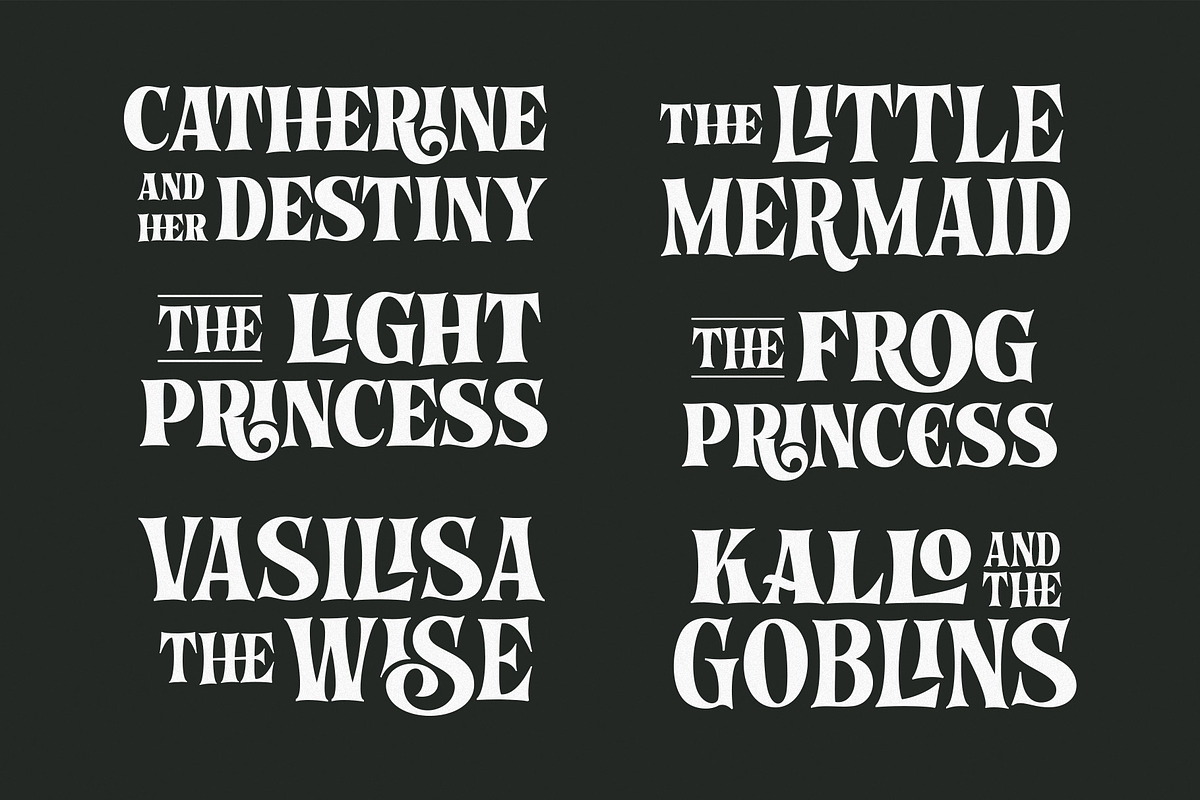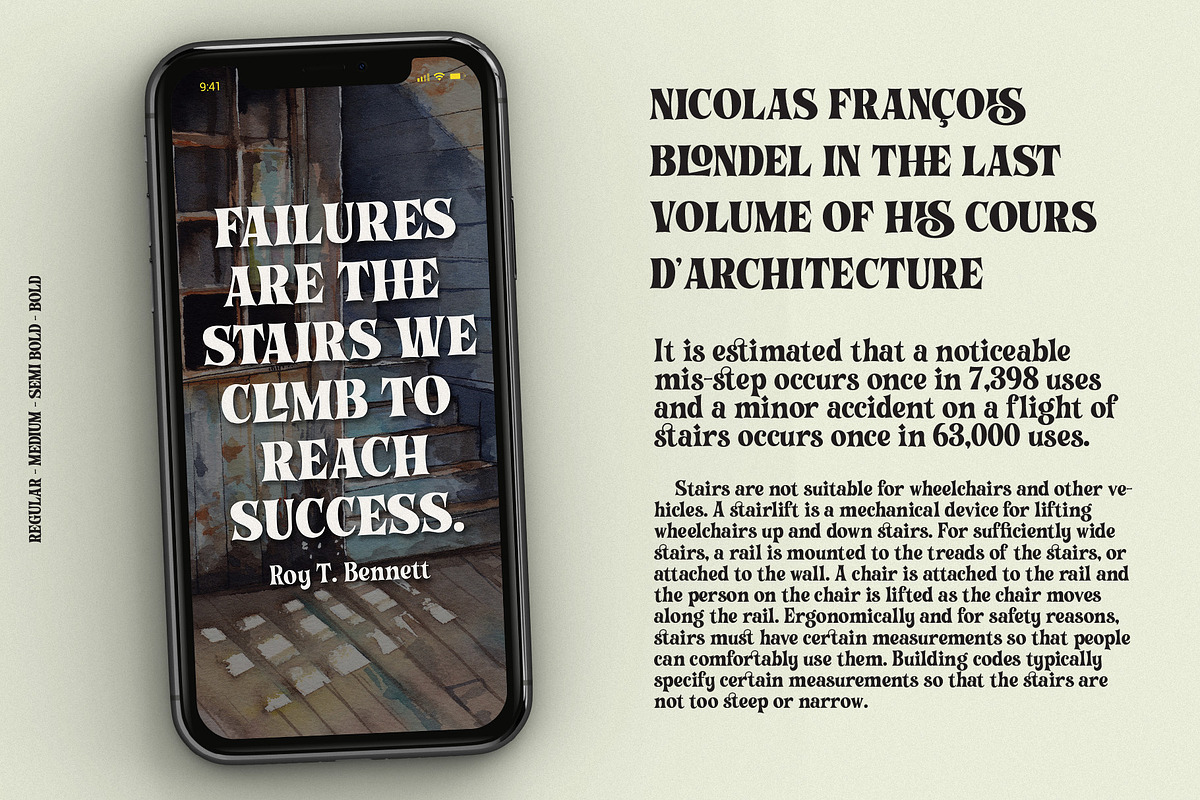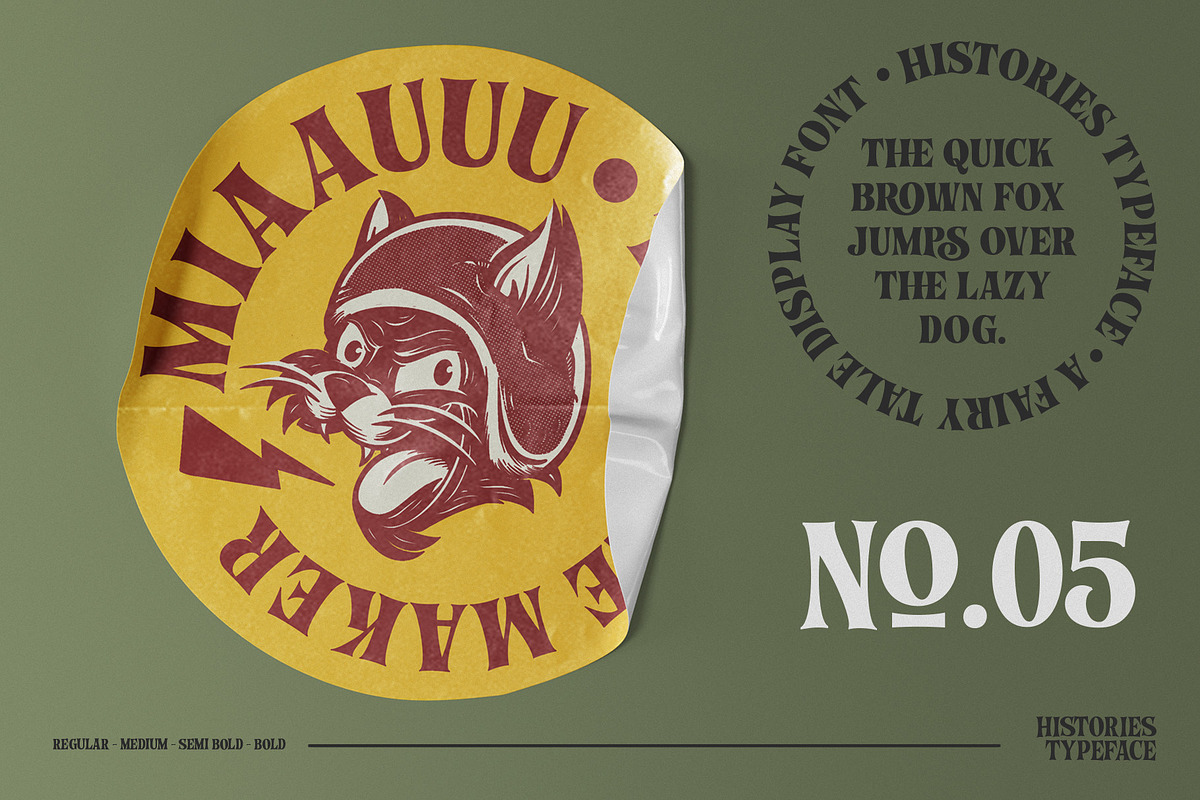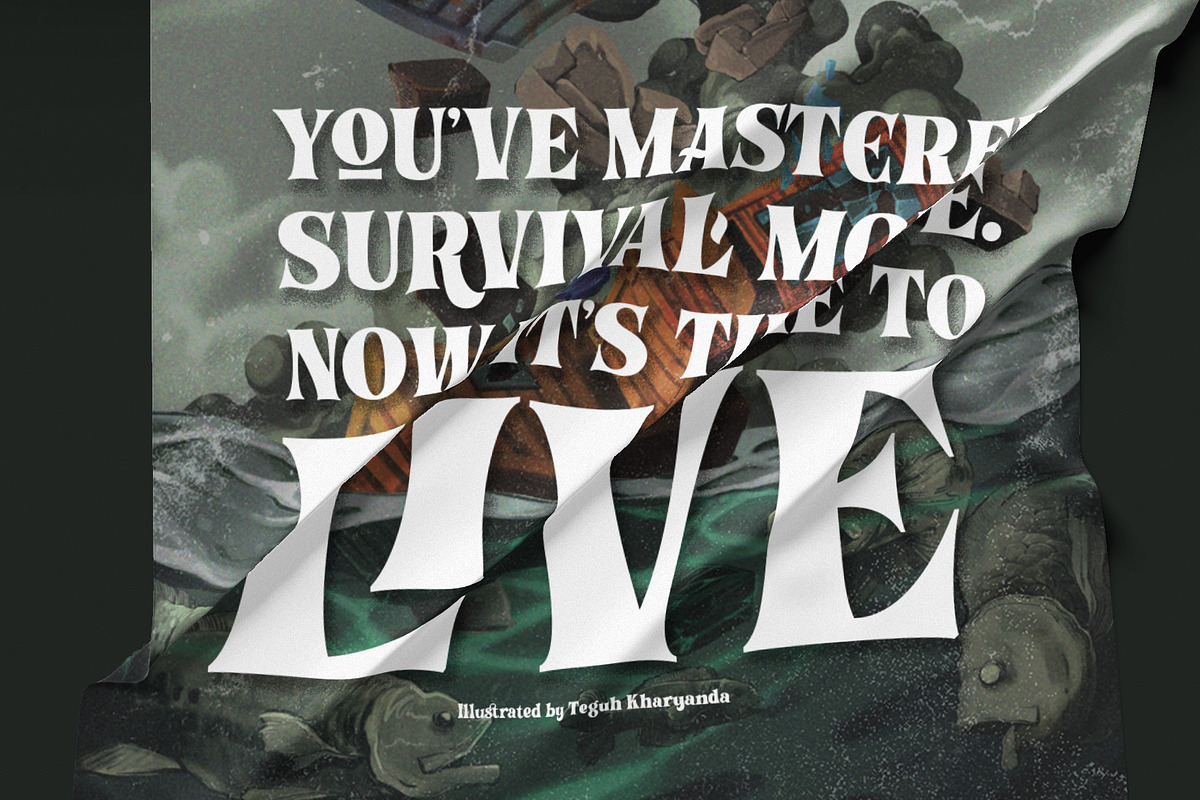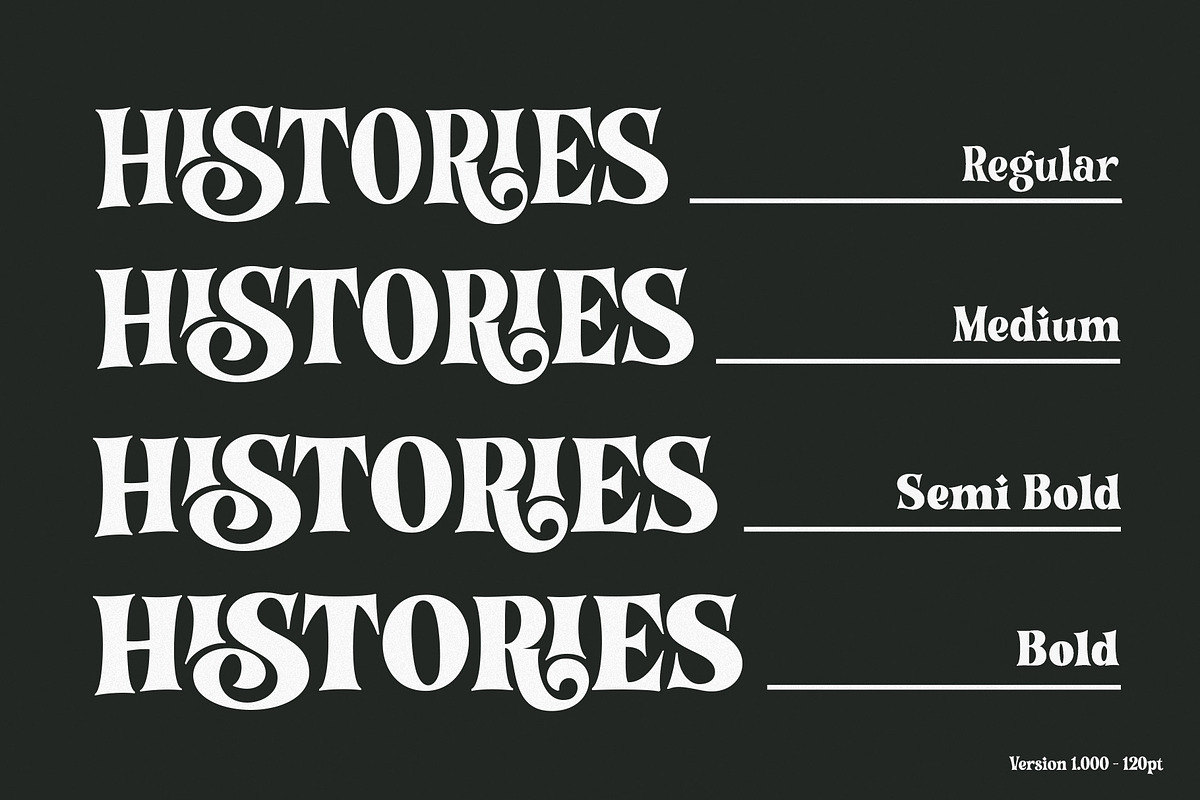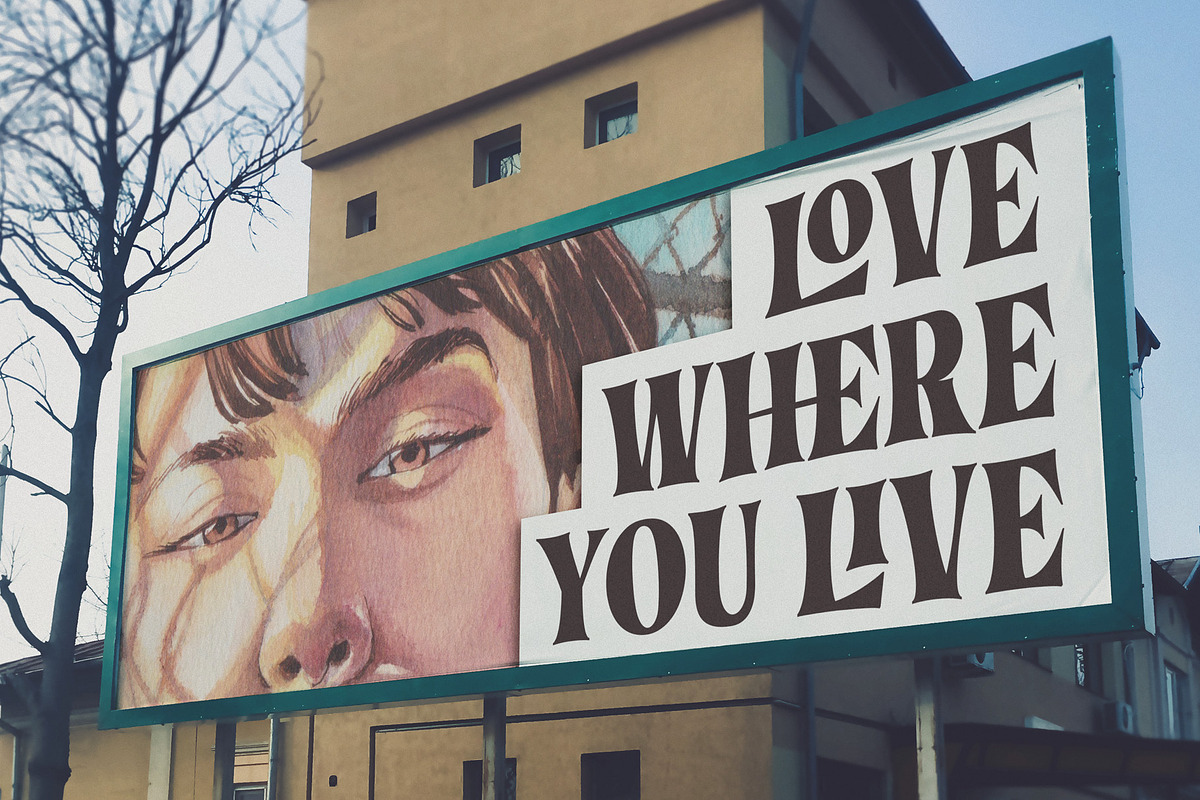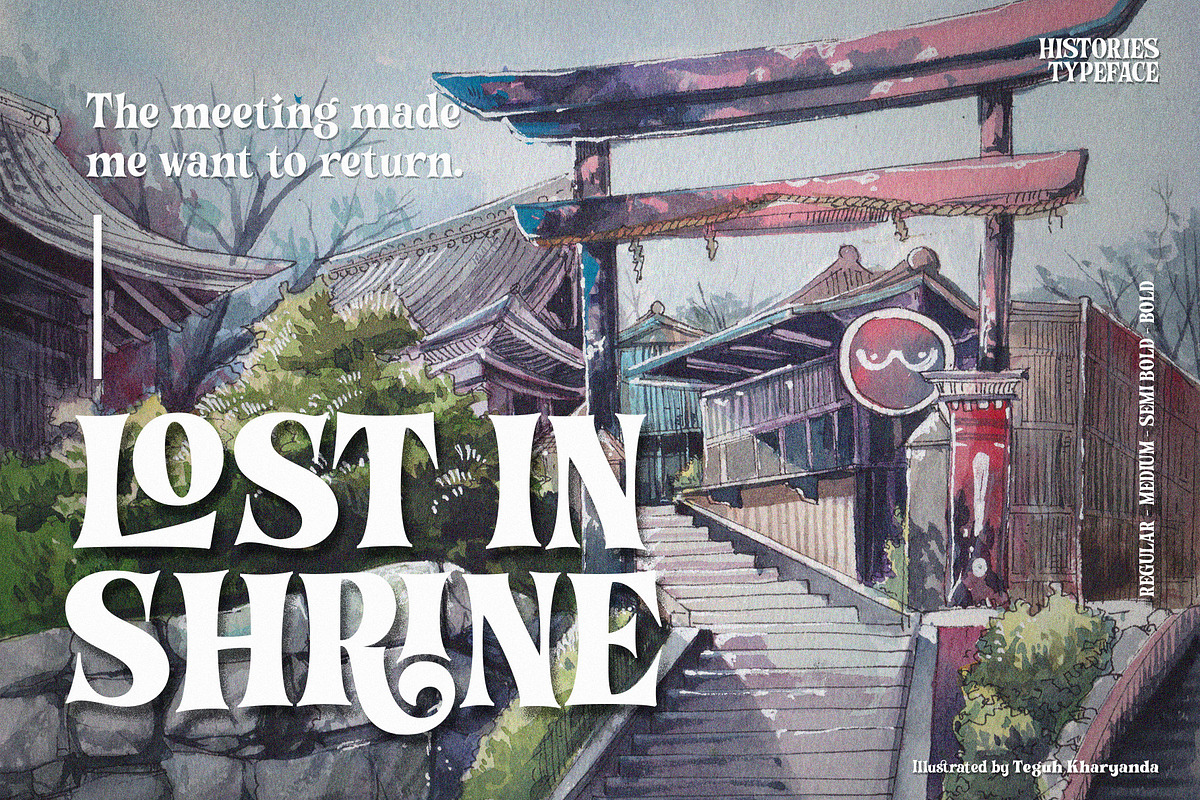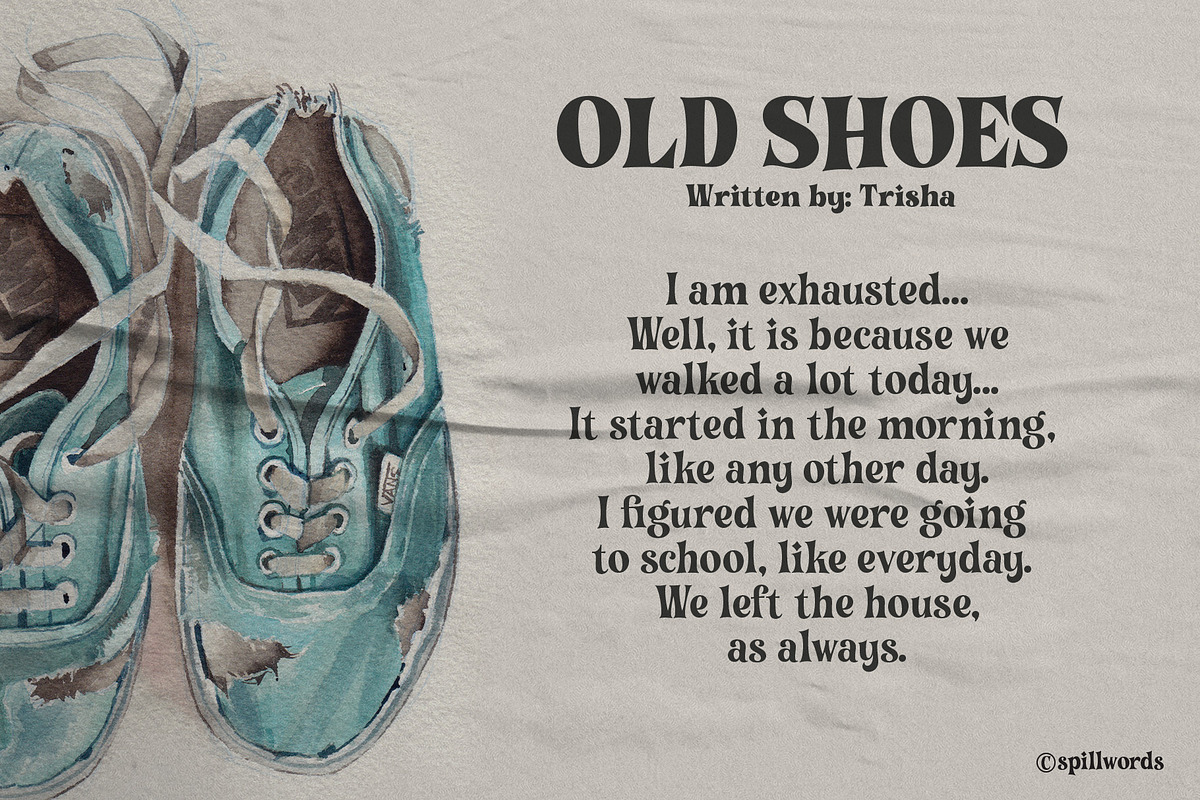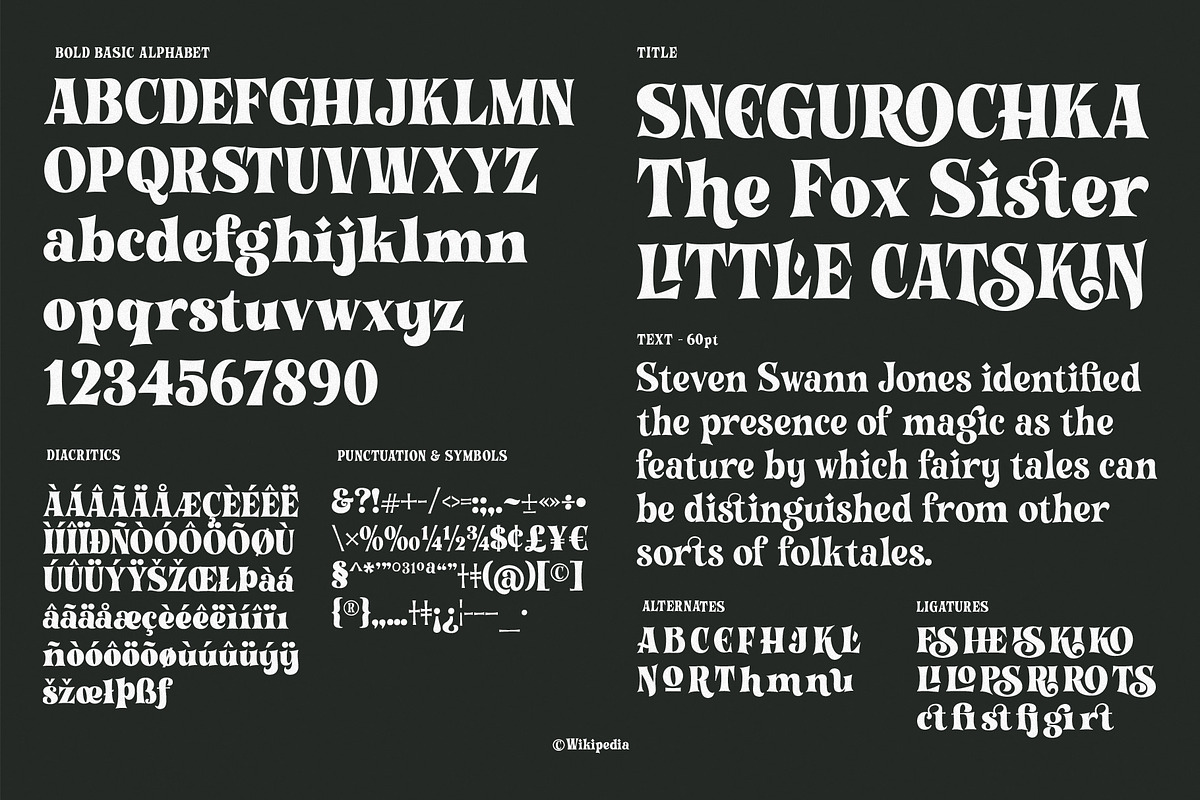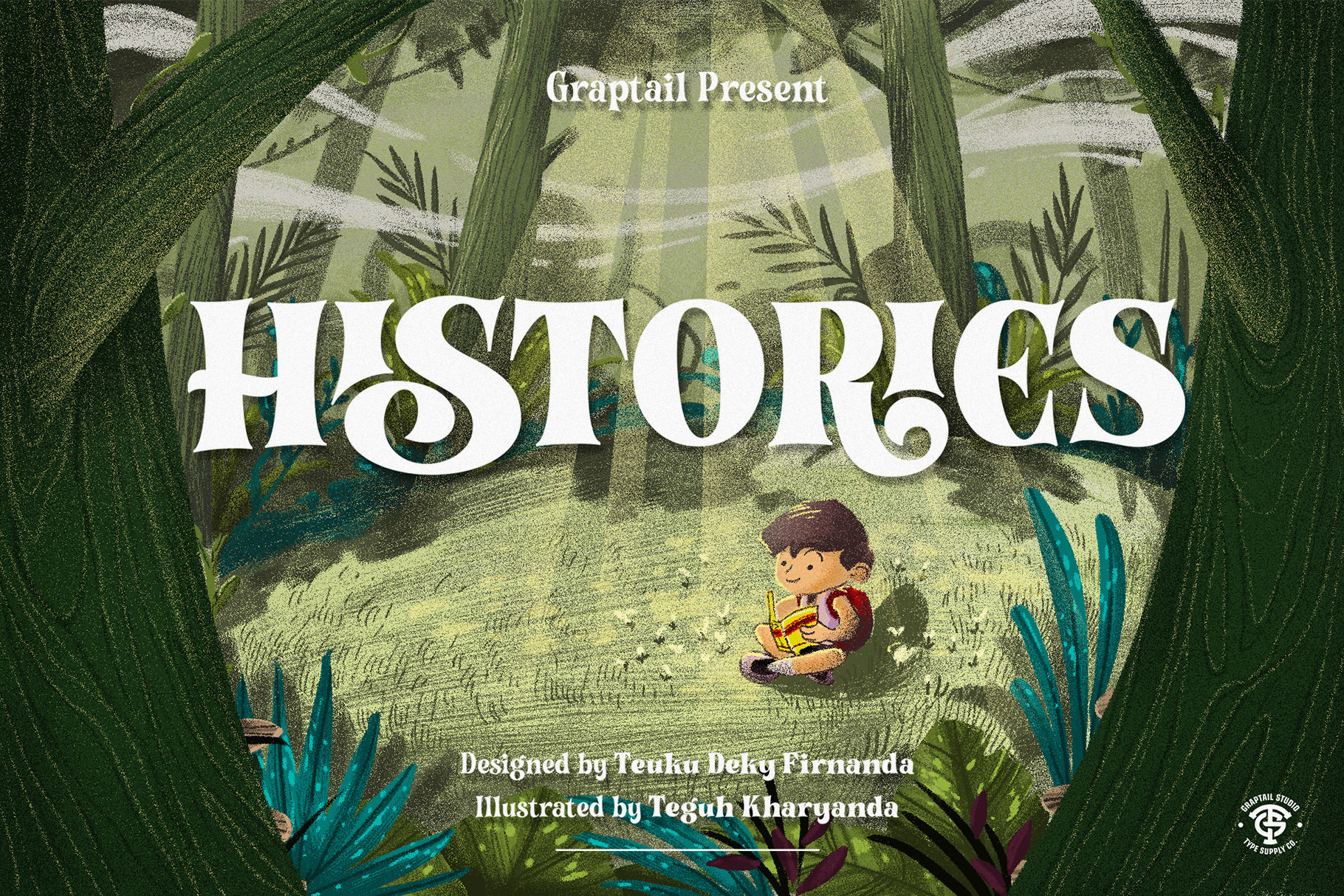
Histories - Fairytale Typeface
Since the beginning, “Histories” has been inspired by the shape of the letters displayed on the cover of fairy tale books or animated film covers. Likewise with the naming of the font "Histories" so that the message of the letters is conveyed. And this stylistic combination should also be reflected in the lowercase set which also allows to open up a spectrum of possible uses. Basic calligraphy represents a solid basis for the development of lowercase glyphs, ensuring proper interaction with uppercase letters.
“Histories” features multiple ligatures that combine the playerful structure with a more attractive feel. With glyphs, it provides a wide range of uses across ligature combinations, alternate marks, pre-caps, assortments and connectors; each of which can be accessed via Open Type.
Histories Font Family best uses for headings, Logo type, quotes, apparel design, invitations, flyer, poster, greeting cards, product packaging, book cover, printed quotes, cover album, movie, etc
OPENTYPE FEATURES
- Discretionary Ligature
- Standard Ligature
- Fractions
- Stylistic Set